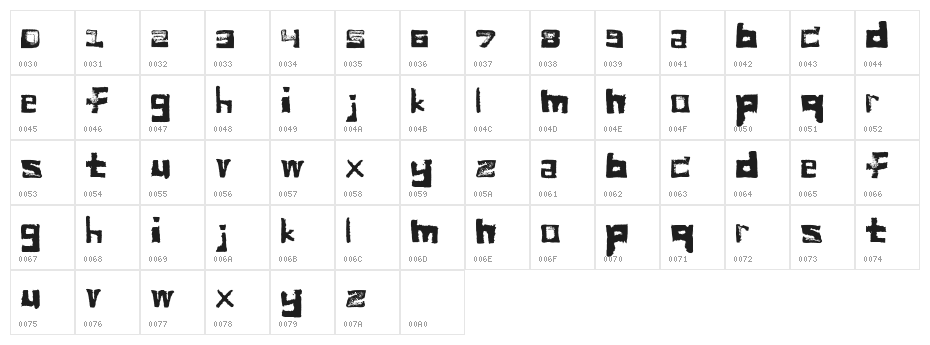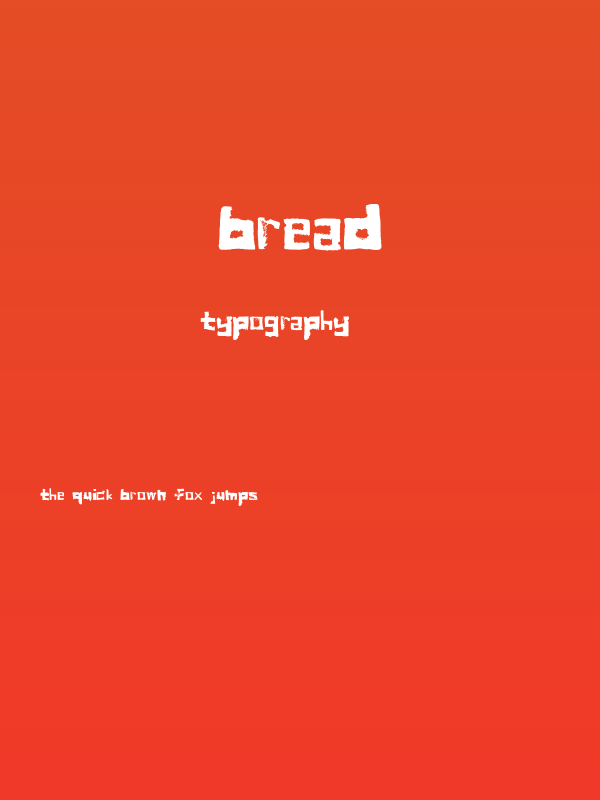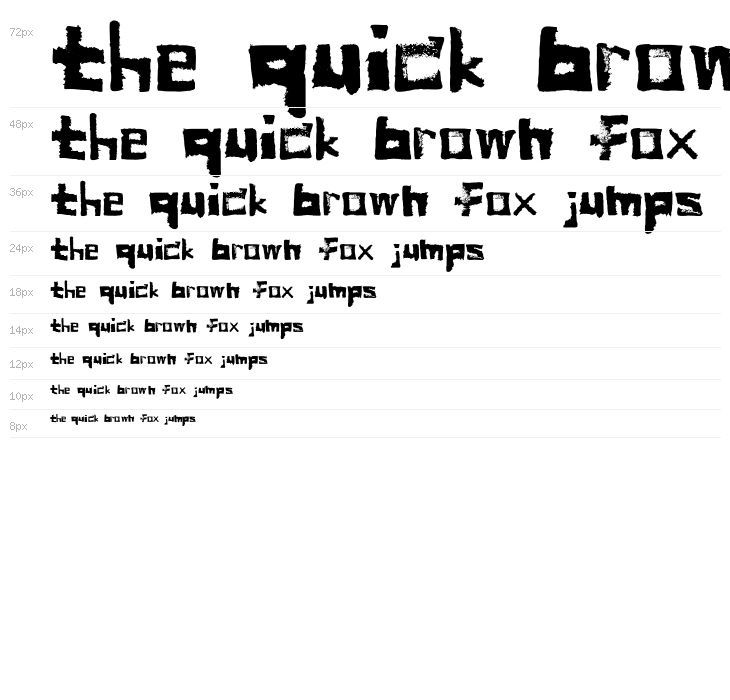
bread Font
bread Description
This font exhibits a bold, distressed style with a grunge texture that gives it a rugged and worn appearance. The characters are blocky and substantial, with irregular edges that create a sense of movement and energy. The uppercase and lowercase letters maintain a consistent height, contributing to a uniform look despite the rough texture. Numbers and special characters follow the same design, ensuring cohesion across all elements. The font's unique style makes it stand out, ideal for projects that require a strong visual impact.
| Overall Style | Grunge, Urban |
| Proposed Projects | Ideal for album covers, posters, streetwear branding, and any design needing a gritty, urban feel. |